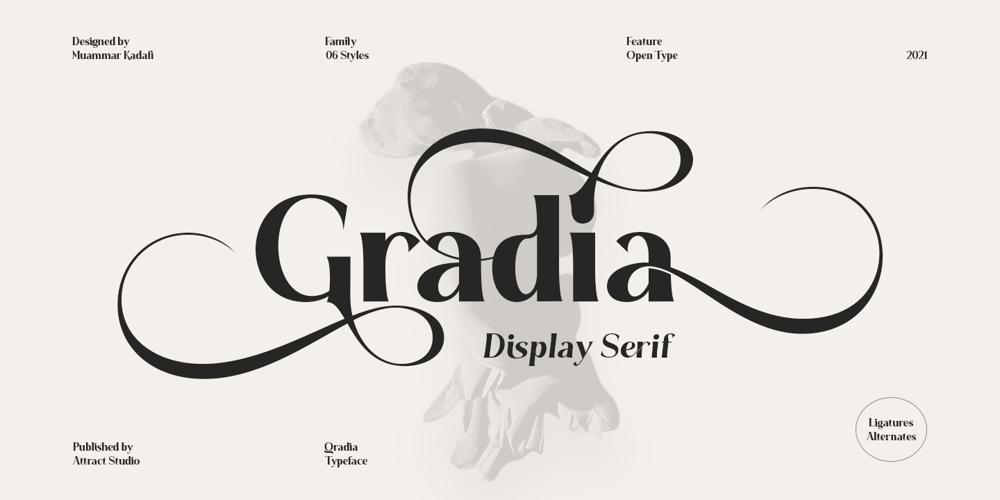
Gradia
Gradia font
Gradia Font Family was designed by Muammar Kadafi and published by Attract Studio. Gradia contains 6 styles and family package options. Gradia is a serif font in the form of a unique & elegant typographic design. very suitable for making your choice of design work from invitation cards to magazines, logos, branding, signage and many other creative projects. Gradia features OpenType 765+ glyphs, also has 270 character Alternates, 116 Ligatures that are perfect for various uses, and is also equipped with multiple language support. What is included: Gradia Regular Italic Gradia Light Italic Gradia Bold Italic To access these OpenType features, you will need Opentype-enabled software such as: Adobe Illustrator, Word, CorelDraw, Photoshop, Indesign and many more.Check out Bagoni Type which is a great pair for Gradia.